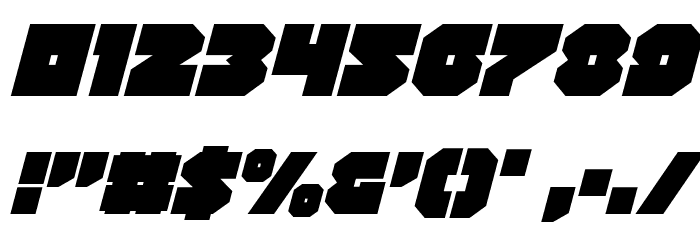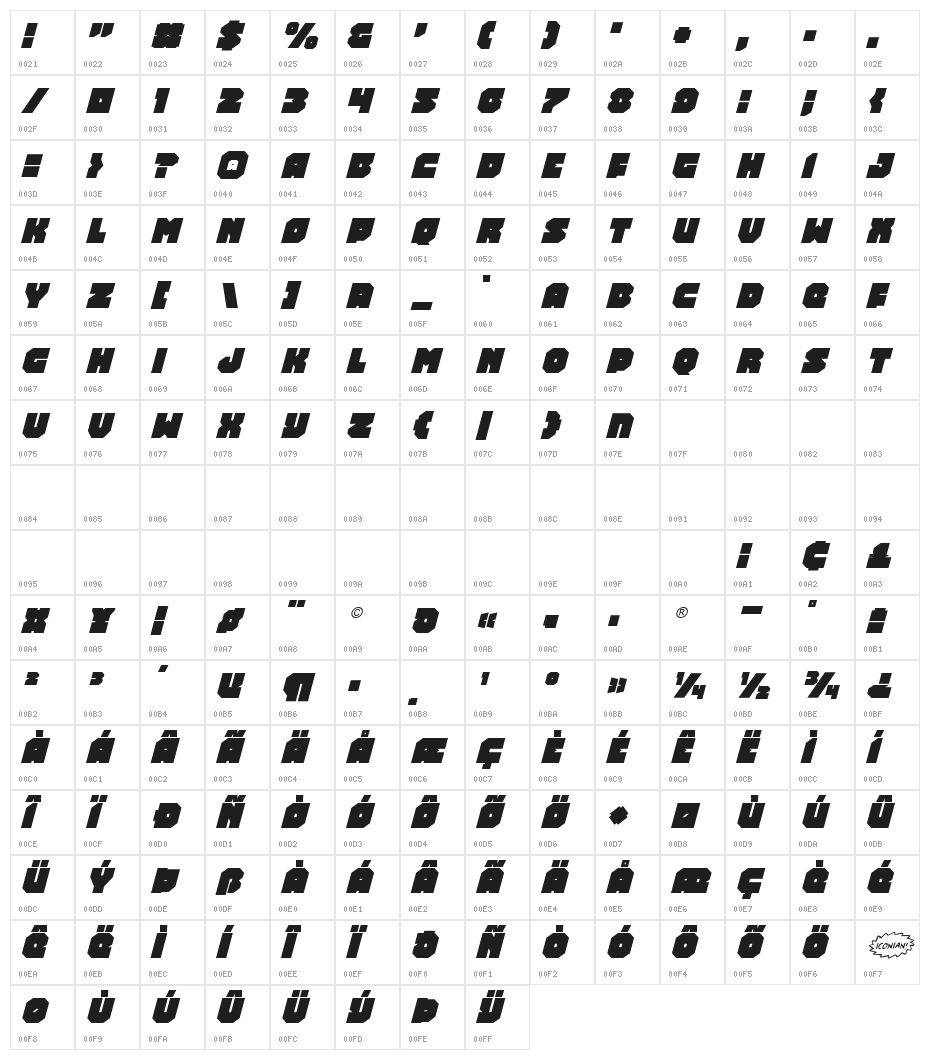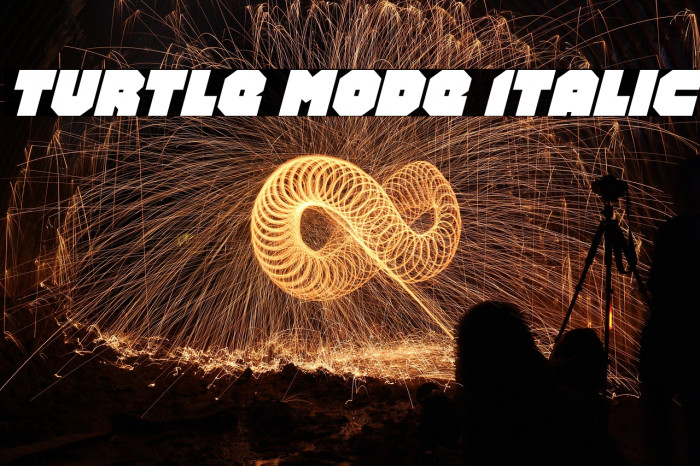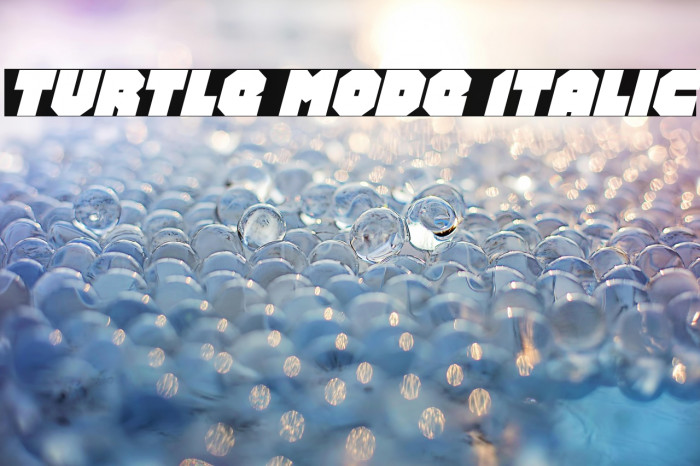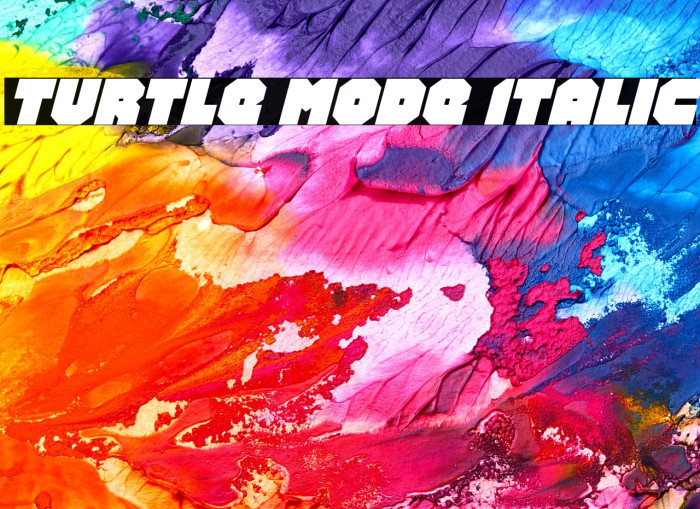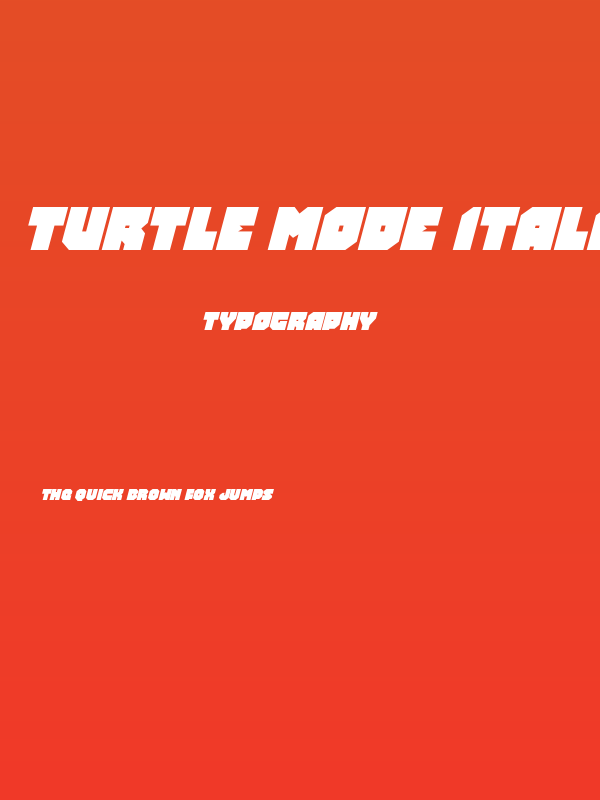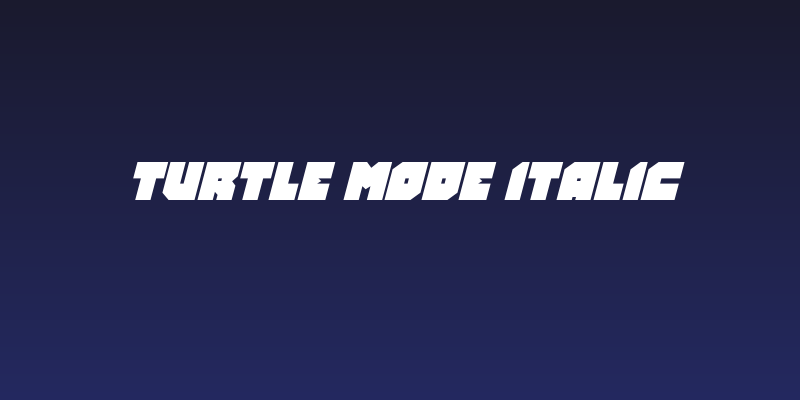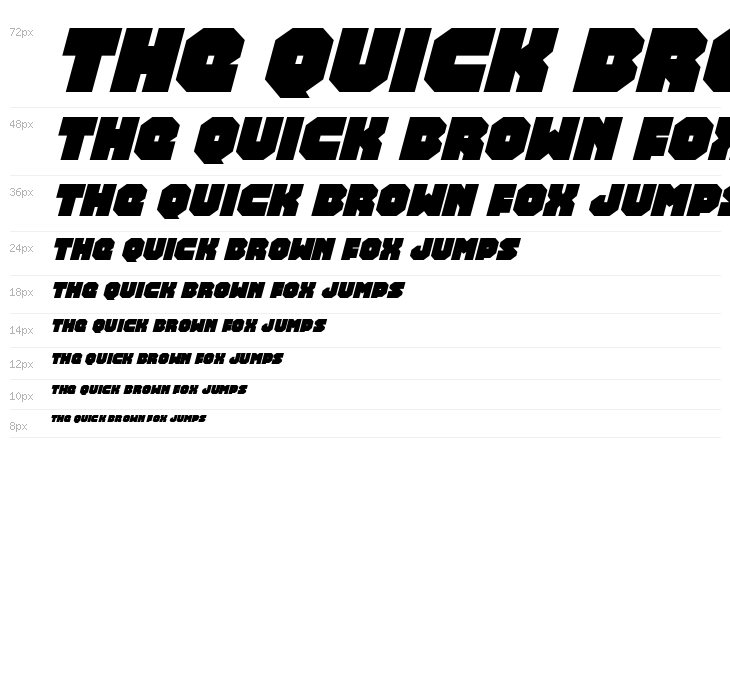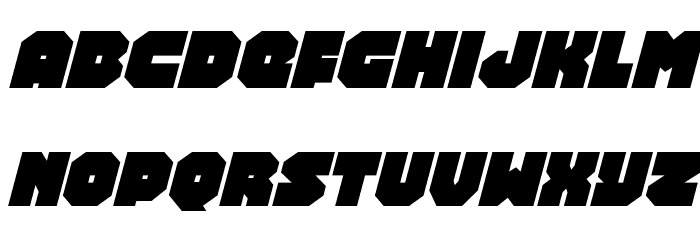
Turtle Mode Italic Font
Turtle Mode Italic Description
This font features a bold, angular design with a strong geometric influence. The characters are heavily stylized, with sharp edges and a blocky appearance that gives them a futuristic and dynamic feel. The italic slant adds a sense of motion and speed, enhancing its modern aesthetic. The uppercase and lowercase letters maintain a consistent style, while the numerals and special characters are designed to match the overall boldness and angularity. This font is highly distinctive and eye-catching, making it suitable for projects that require a strong visual impact.
| Proposed Projects | Ideal for video game titles, sci-fi movie posters, tech branding, and sports team logos. |